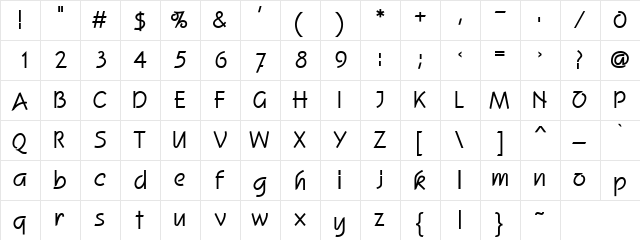
25 Regular Font Preview
25 Regular
25 Regular Font Details
Design Context for 25 Typeface
25 takes a measured approach to typography — its balanced proportions and neutral character make it a reliable workhorse for both digital and print work.